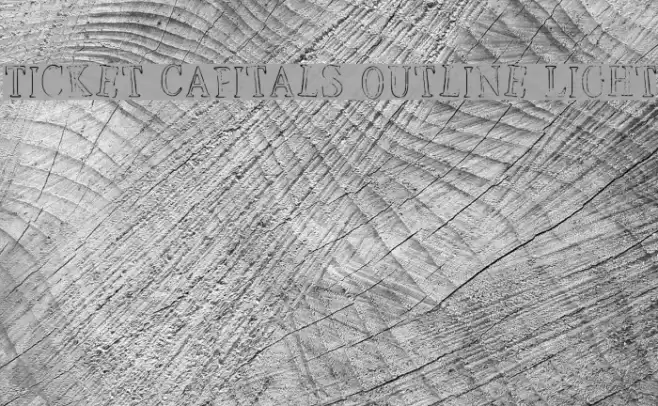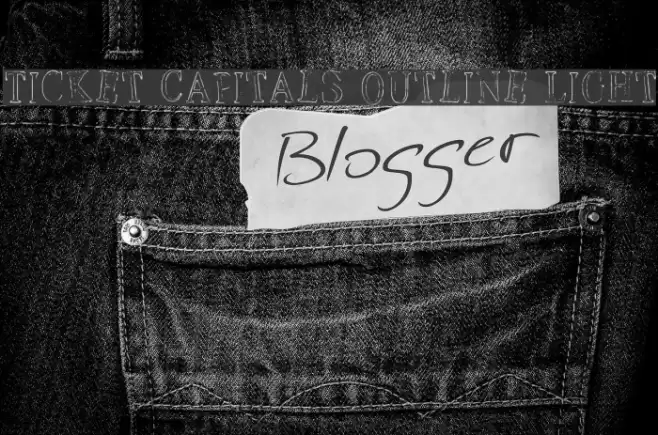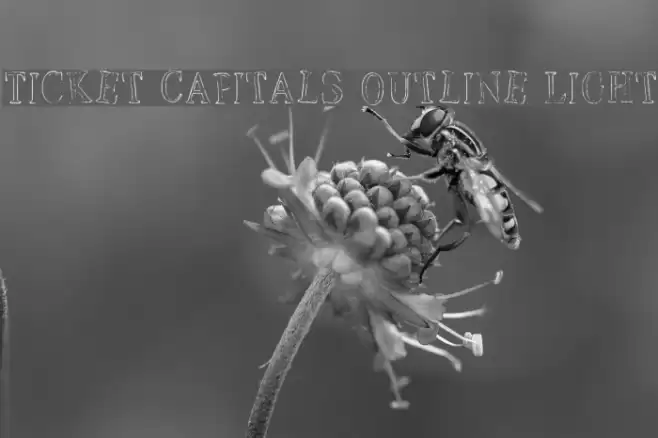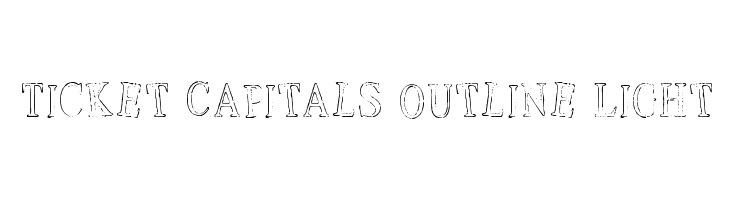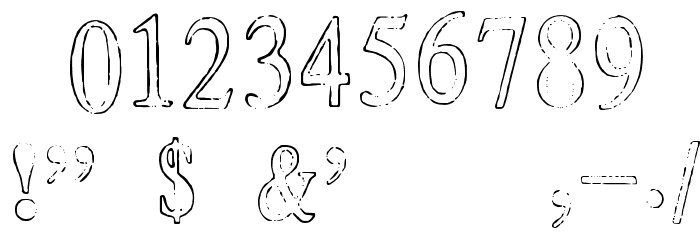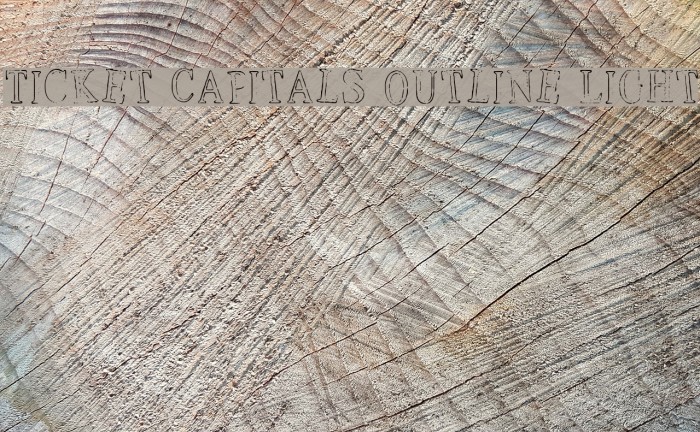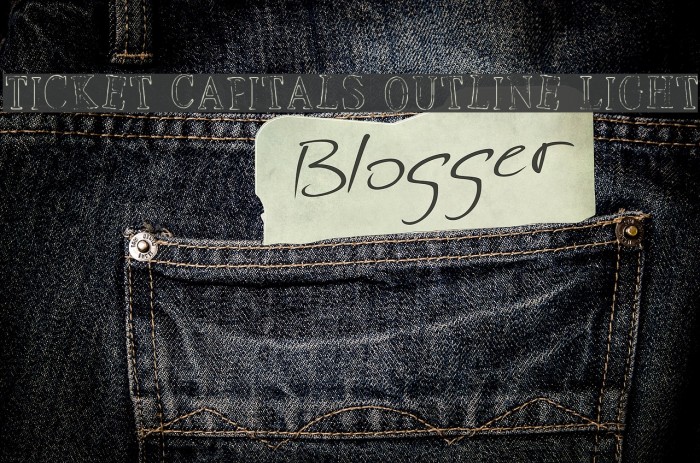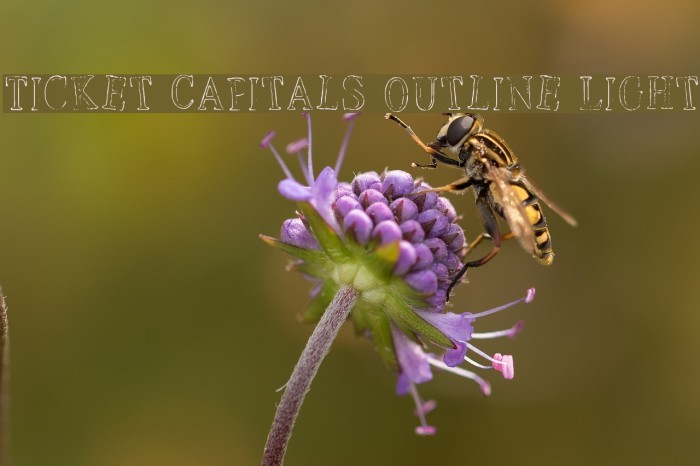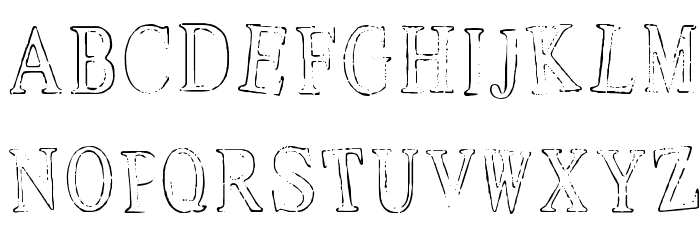
Ticket Capitals Outline Light Font
Ticket Capitals Outline Light Description
This font features a distinctive outline style with a light, airy feel. The characters are uppercase and lowercase letters, along with numbers and a selection of special characters. Each letter is crafted with a thin, consistent line that forms the outer shape, giving it an elegant and sophisticated appearance. The font maintains a classic serif structure, with small decorative strokes at the ends of the letters, enhancing its traditional yet modern appeal. The spacing between characters is balanced, allowing for clear readability while maintaining a stylish look. This font is perfect for projects that require a touch of elegance and refinement, such as invitations, branding, or editorial design.
An elegant outline serif font with a light and airy feel from Uncategorized fonts.
- Proposed Projects: Ideal for invitations, branding, editorial design, and elegant signage.
- Overall Style: Classic